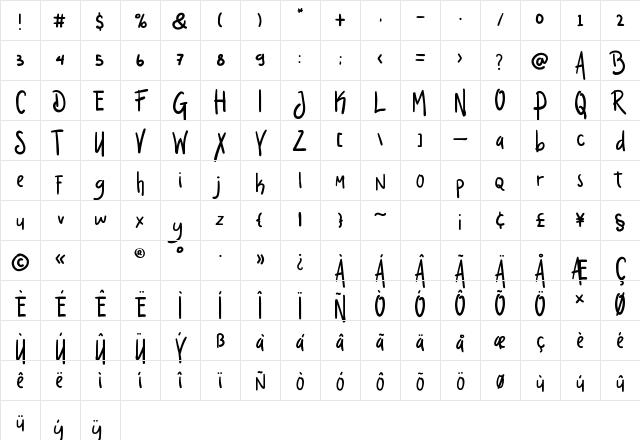
Dream Night Regular Free Font
Dream Night Regular
Foundry: eknoji
Designer: EKNOJI
Design Context for Dream Night
Dream Night is a composed and adaptable typeface that performs quietly and consistently across a wide range of design contexts.